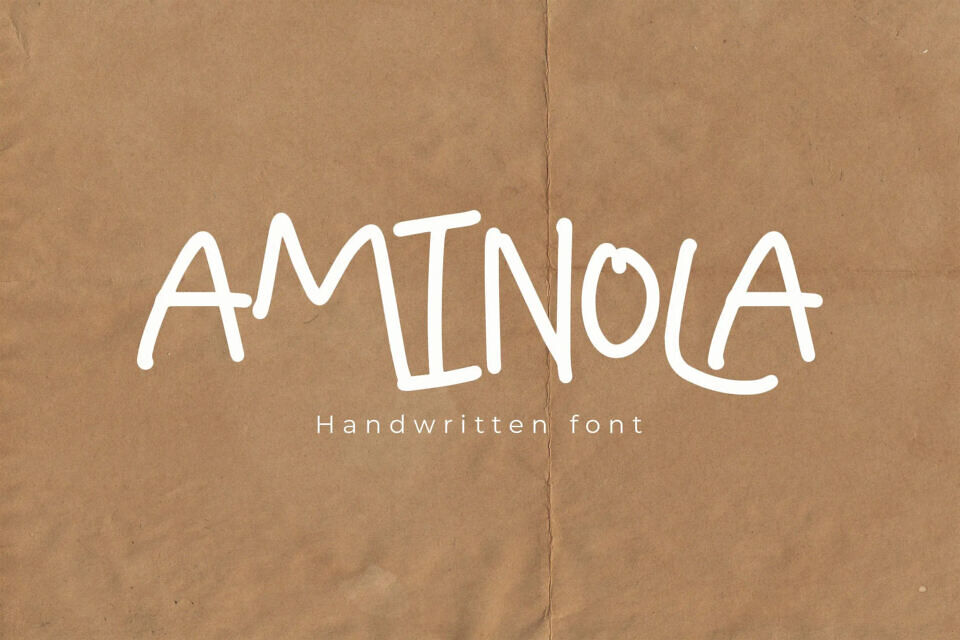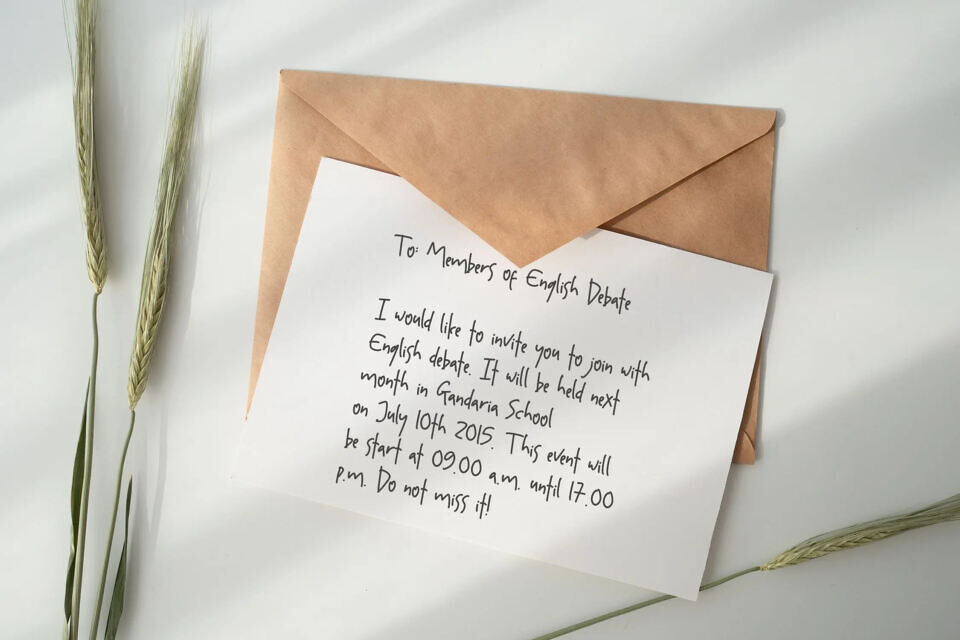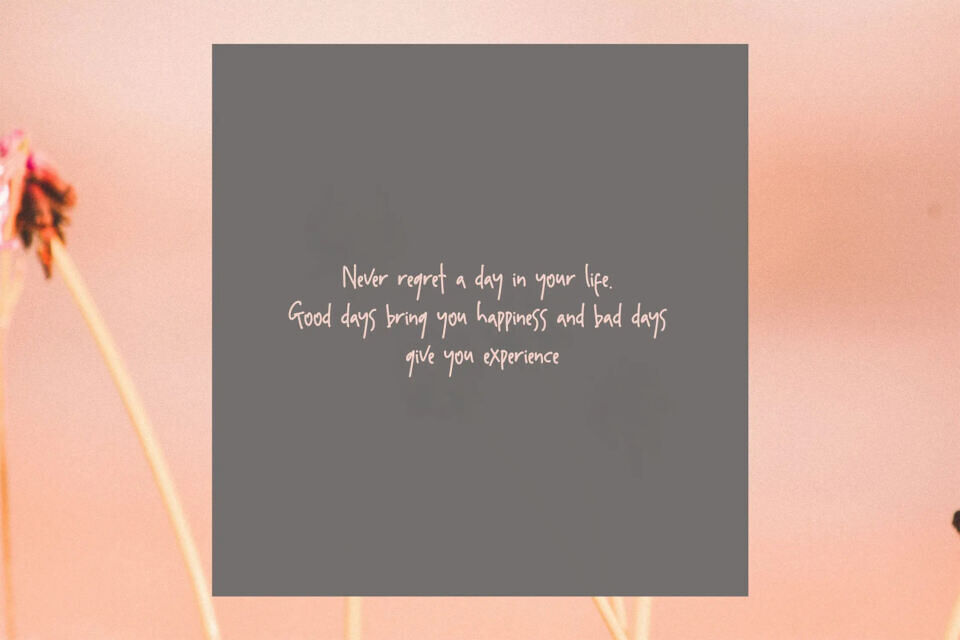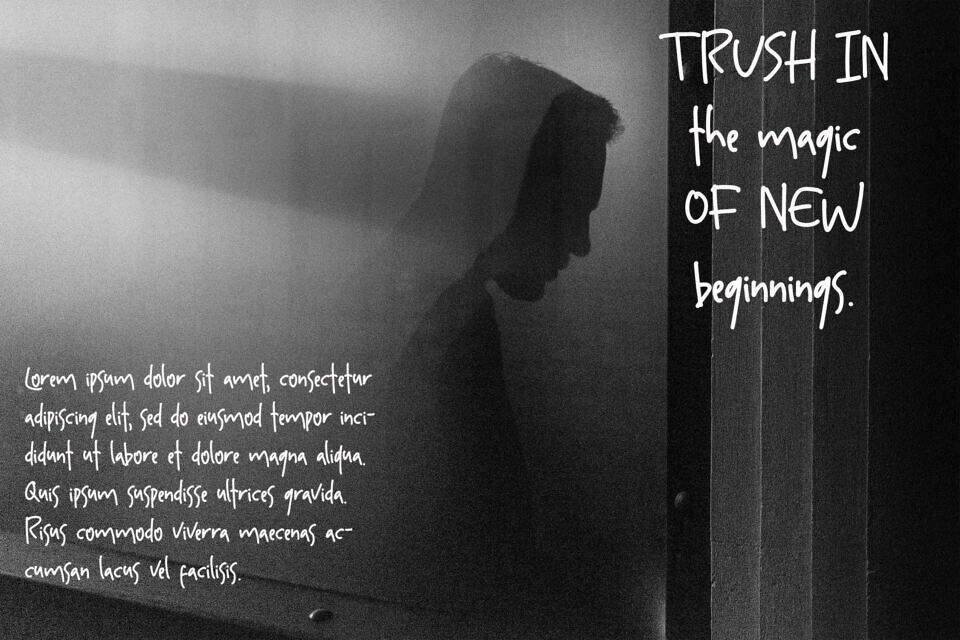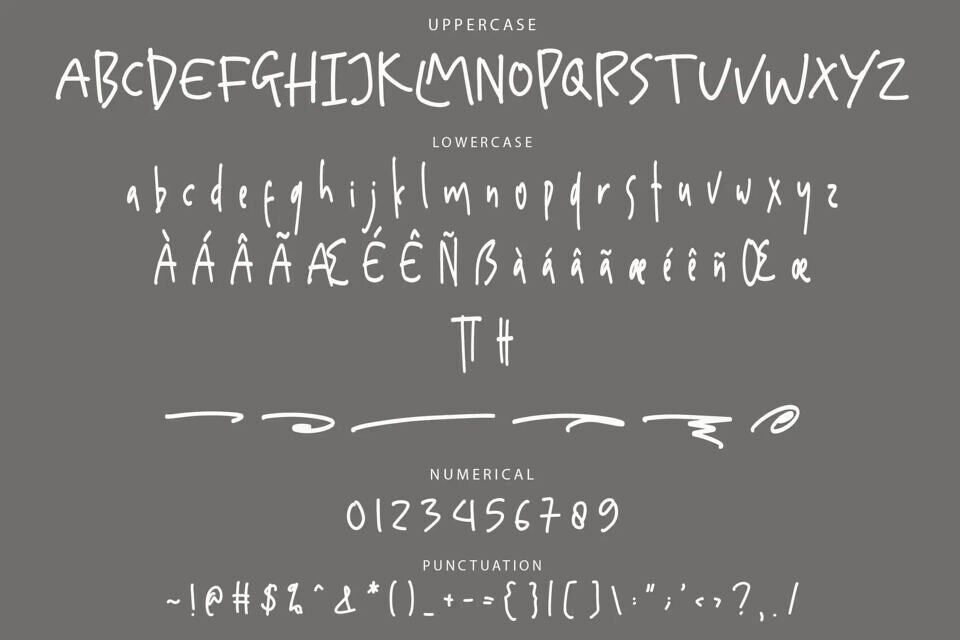
Aminola is a minimalist monoline handwriting font, featuring clean lines and unique character shapes that give your designs a modern and sophisticated touch.
Whether you’re working on logos, product branding, or invitations, Aminola adds elegance and enhances the visual appeal of your creations.